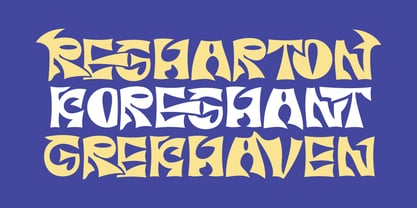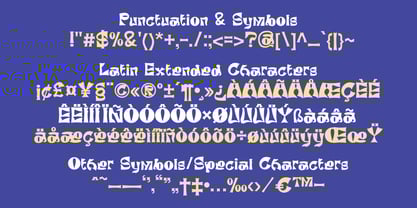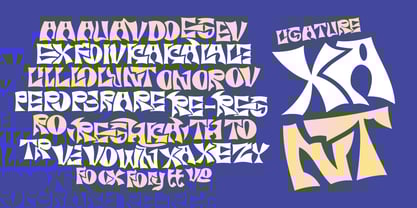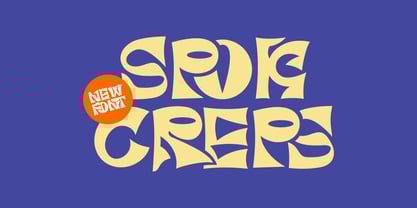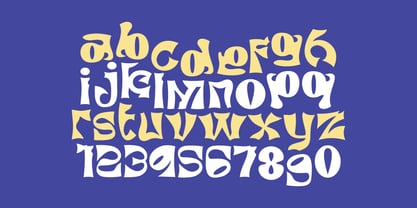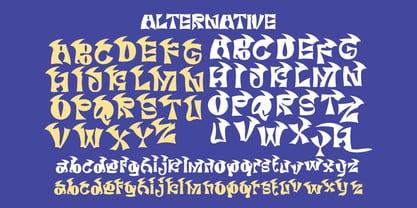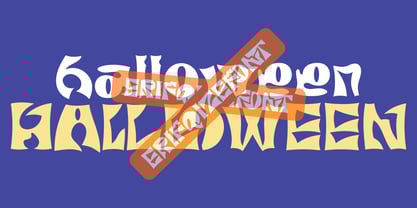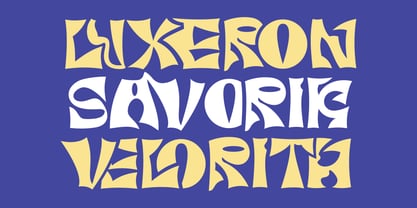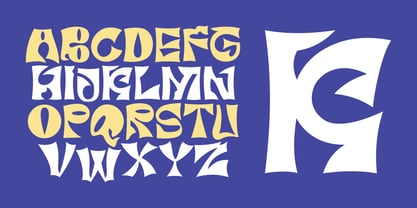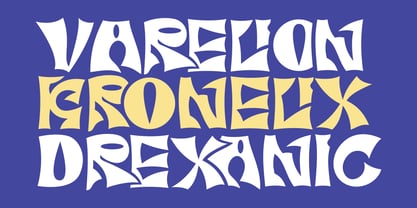
Spok Creps
by Erifqizefont
The Spok Creps Font Family was designed by Eka Rifqi Setiawan and published by Erifqizefont. Spok Creps contains 1 styles. More about this family
Spok Creps – Bold & chDisplay Font Spok Creps is a bold, funky-themed sans-serif display font that radiates expressive energy and artistic freedom. With its abstract shapes and unique letterforms, it brings a dynamic and creative edge to any design. Packed with 106 alternates and 45 ligatures, Spok Creps offers exceptional versatility for custom typography, making it ideal for branding, posters, headlines, and both modern or retro-inspired visuals. This font also works perfectly for Halloween-themed designs, giving a playful yet bold spooky vibe. It includes multilingual support, ensuring your designs resonate with audiences worldwide. Turn your ideas into visually striking, unforgettable creations with the bold and spooky spirit of Spok Creps.
Introducing Erifqizefont, a Foundry led by Eka Rifqi Setiawan. Originating from Eka's experience as an Icon Designer, Erifqizefont specializes in bold, symmetrical Display Fonts with futuristic elements, occasionally exploring retro and whimsical styles. Based in Indonesia, Erifqizefont integrates the nation's cultural heritage into its designs. As a sole proprietor, Eka focuses on crafting superior, unique fonts, setting Erifqizefont apart in the industry.